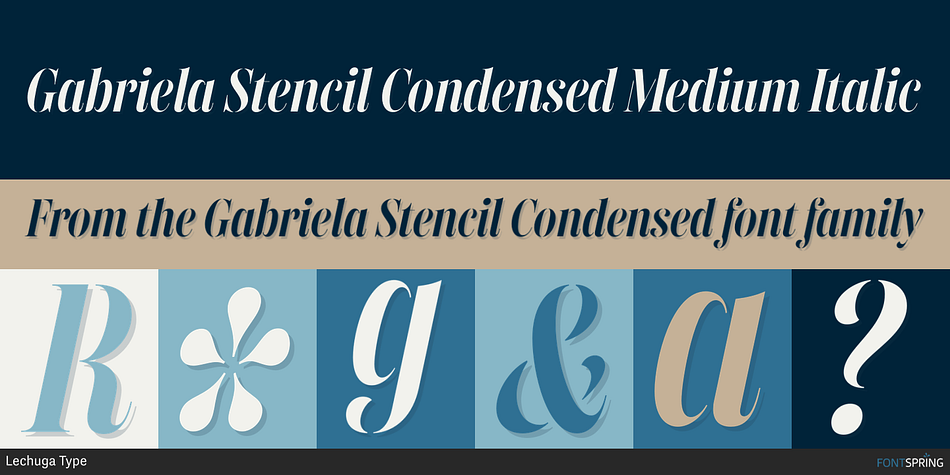
Gabriela Stencil Condensed Medium Italic
Designed by Antonio Mejía Lechuga, Gabriela Stencil Condensed is a stencil font family. This typeface has fourteen styles and was published by Antonio Lechuga.
Gabriela Stencil, a fashion magazine-inspired typeface with an edgy, elegant couture feel that will make your designs stand out. Whether it’s for advertising, editorial, packaging, or branding, its personality will steal the show. Inspired by the style of 19th century Didone typefaces, this condensed version of Gabriela Stencil is ideal for headlines, short texts, branding, and publishing projects. The family comes in 7 weights, plus a matching italic. Includes more than 530 glyphs supporting 94 different languages, alternates, and discretionary ligatures.
Foundry Lechuga Type
Designer Antonio Mejía Lechuga